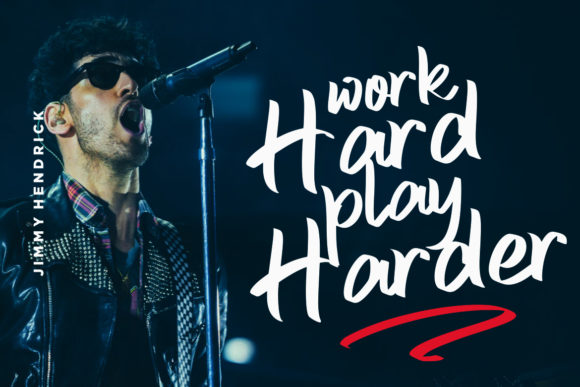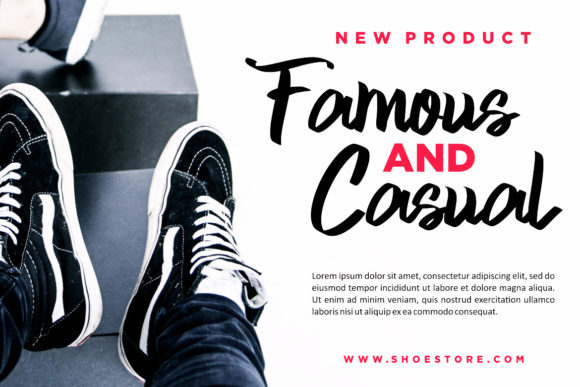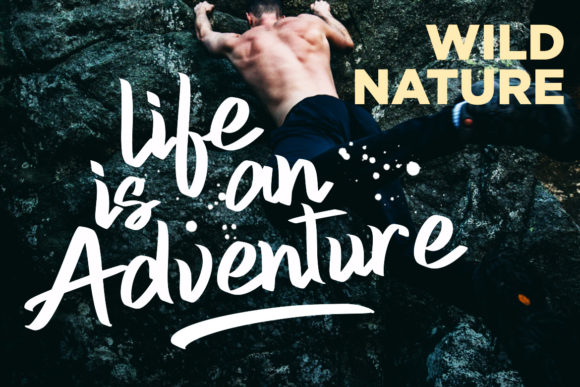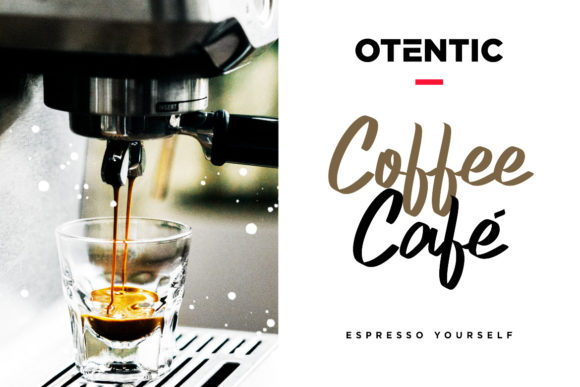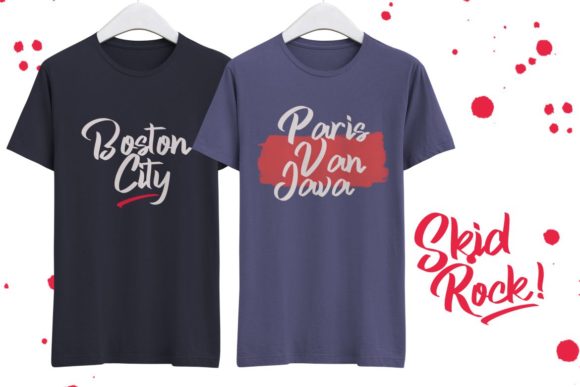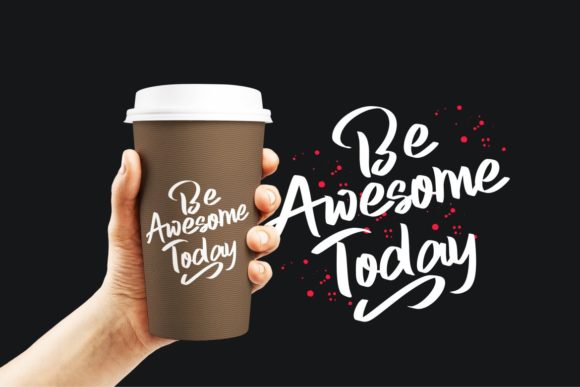
Introduction to Skid Rock Font
Skid Rock feels modern, bold and clean.
This display typeface radiates energy, and will add raw charm to any design project .